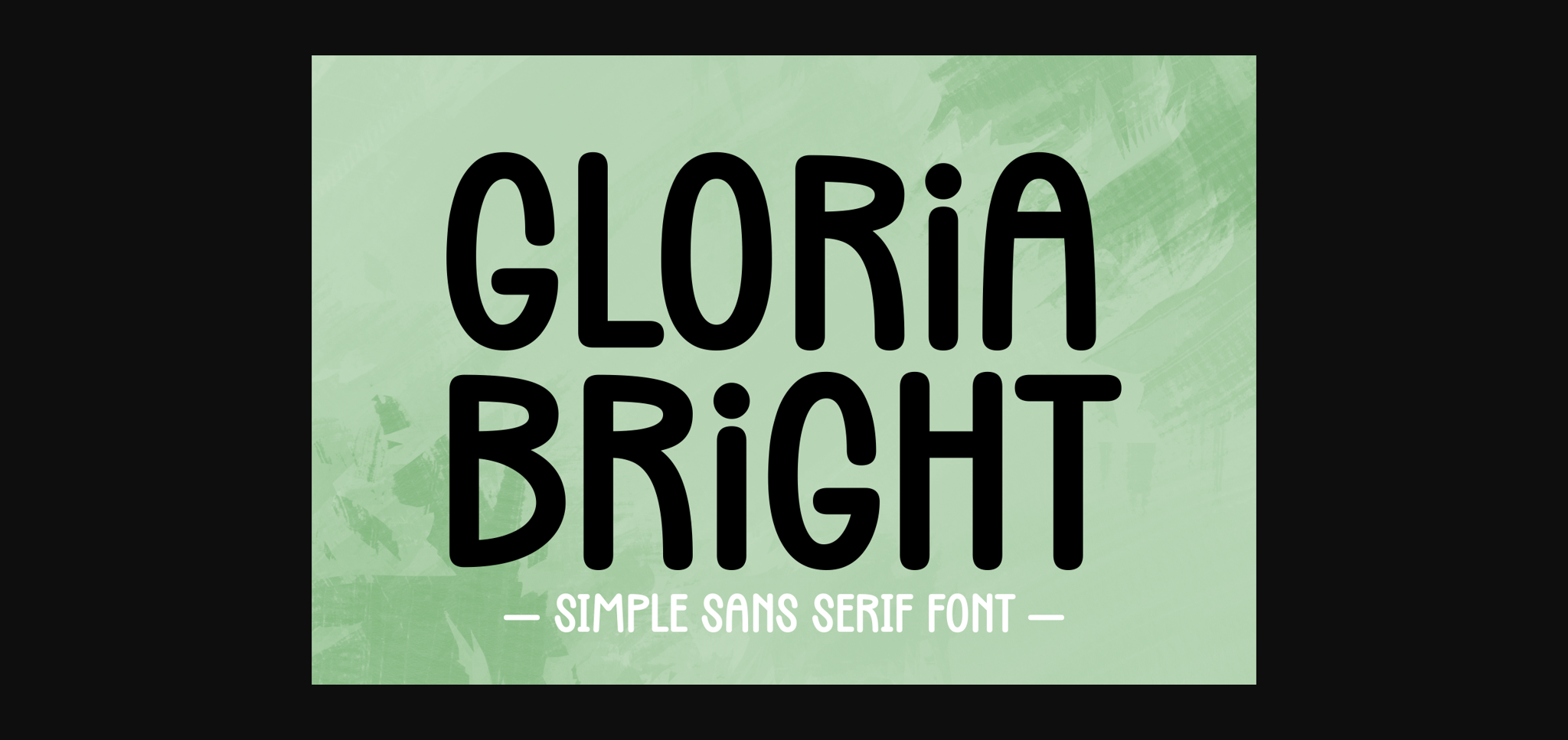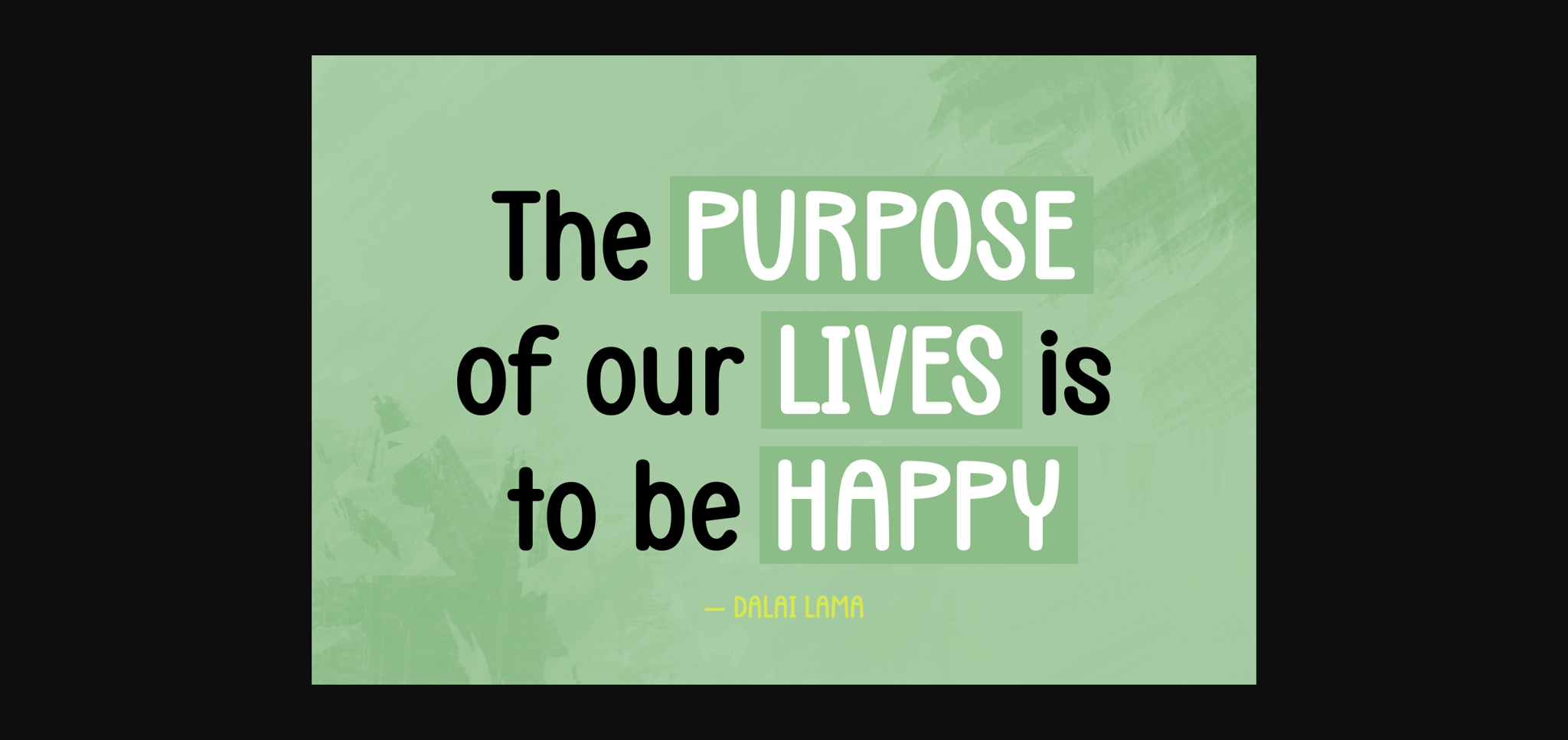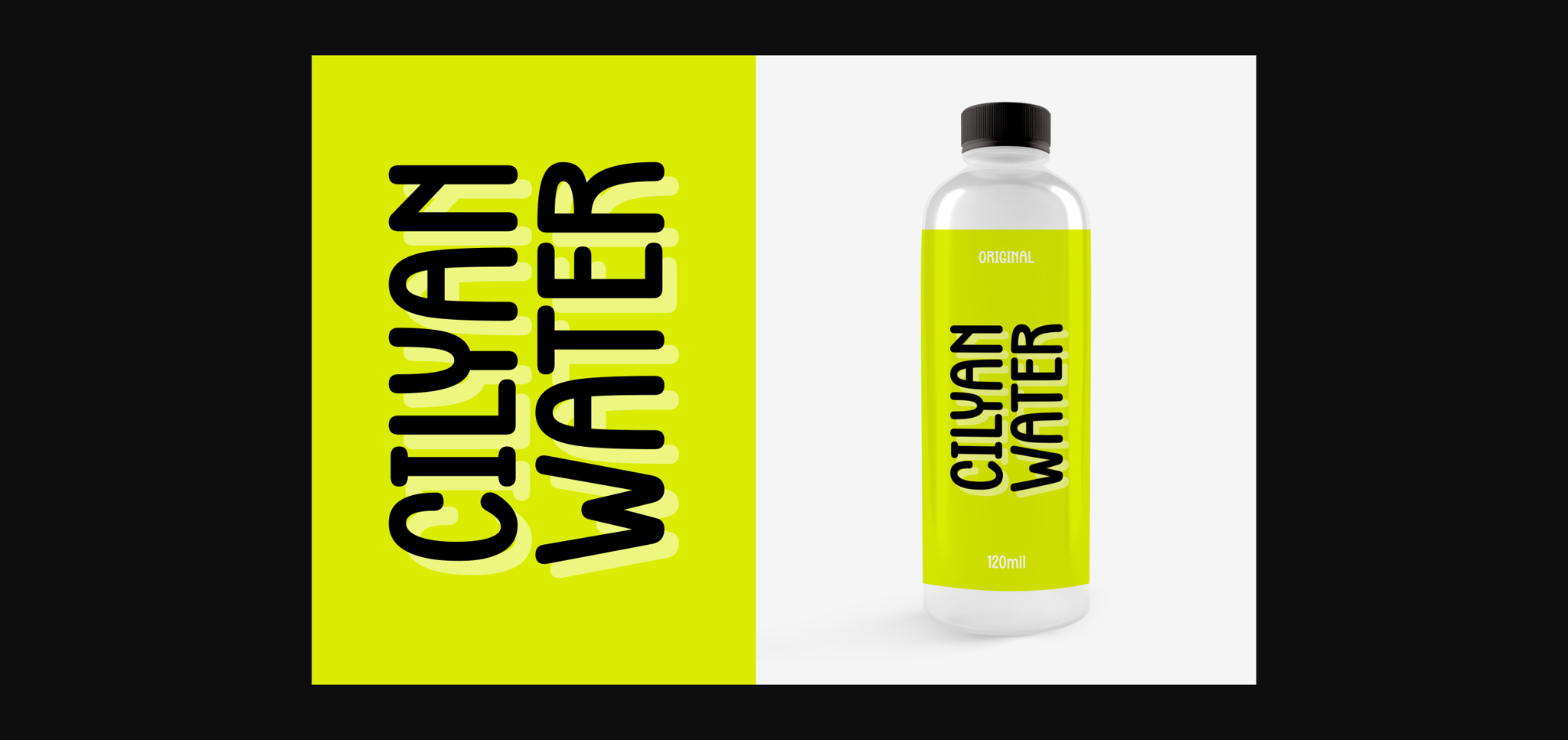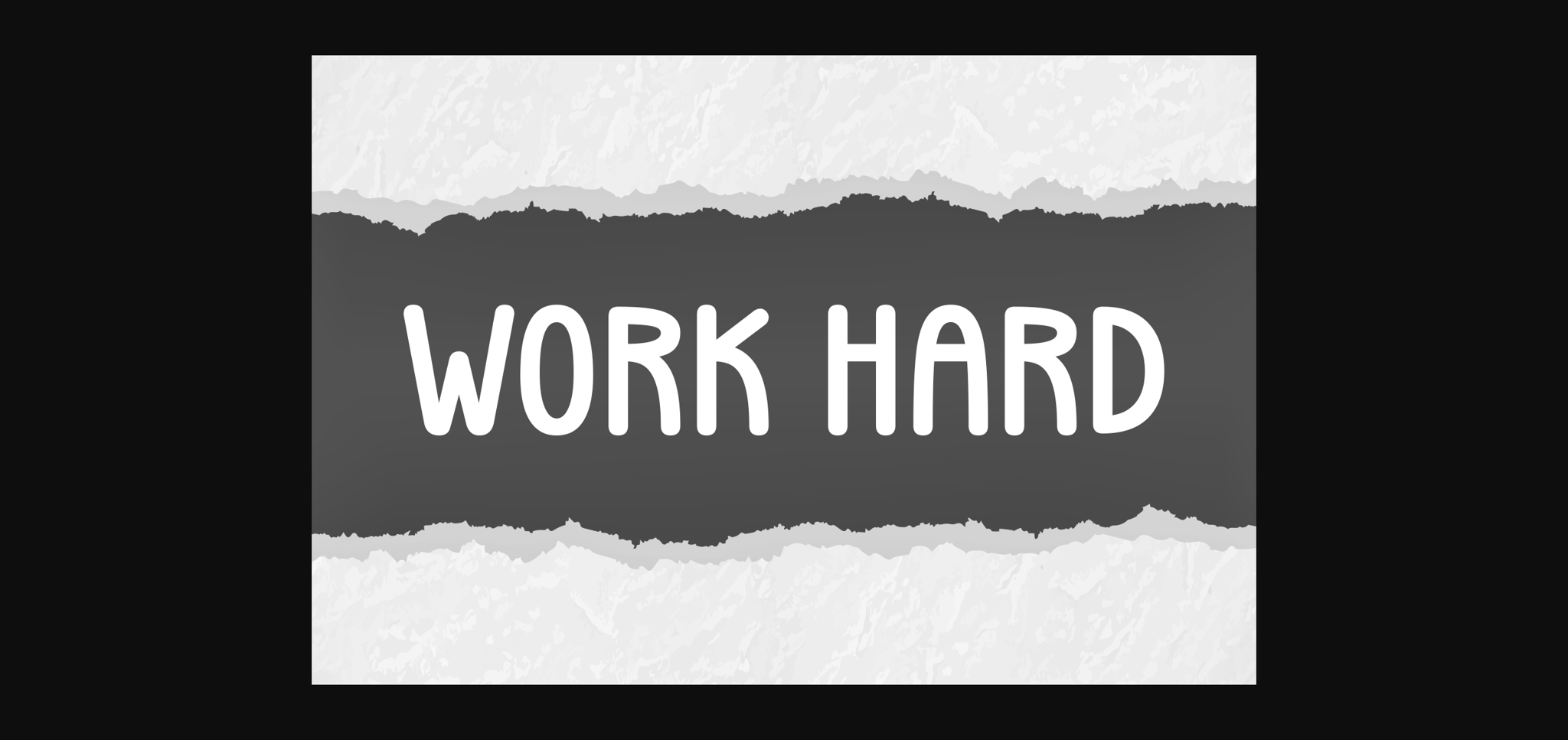
About Gloria Bright Font
Meet “Gloria Bright,” a simple sans serif font that effortlessly combines elegance with clarity. With clean lines and a modern aesthetic, Gloria Bright is the perfect choice for projects that demand a sleek and sophisticated look. Whether you’re creating professional documents, contemporary branding, or minimalist designs, this font brings a touch of brightness and simplicity to your typography. Elevate your visual communication with Gloria Bright’s timeless and versatile charm.